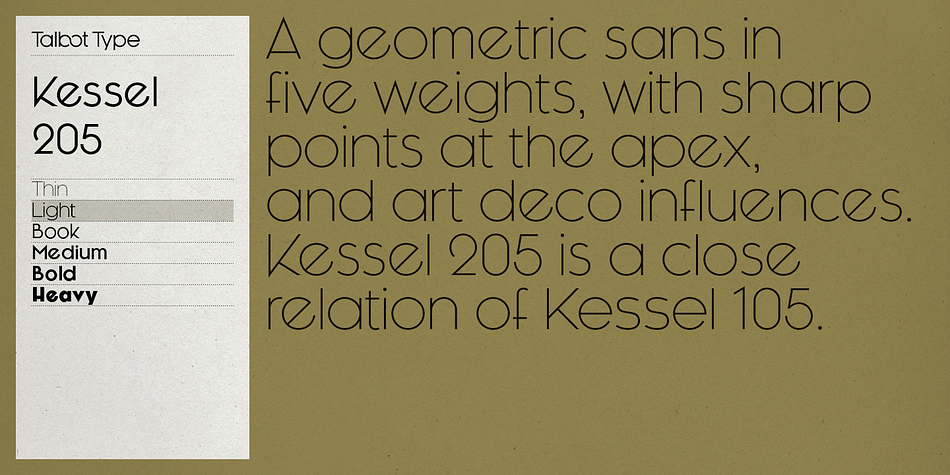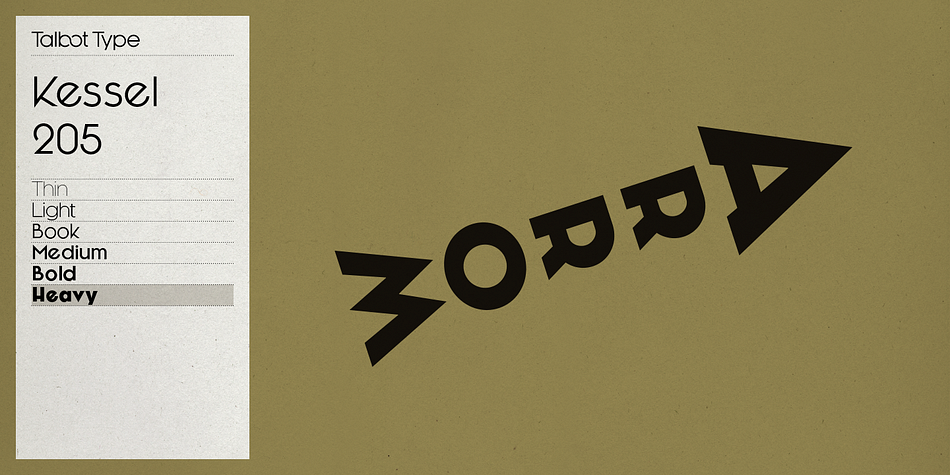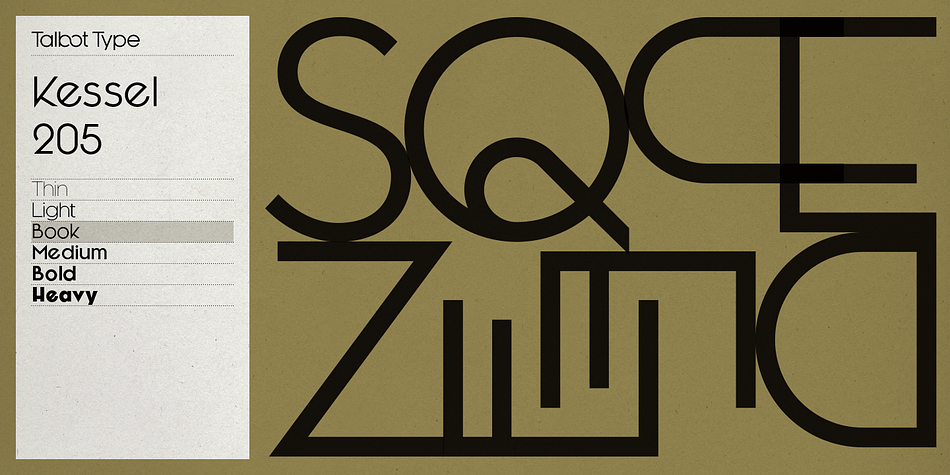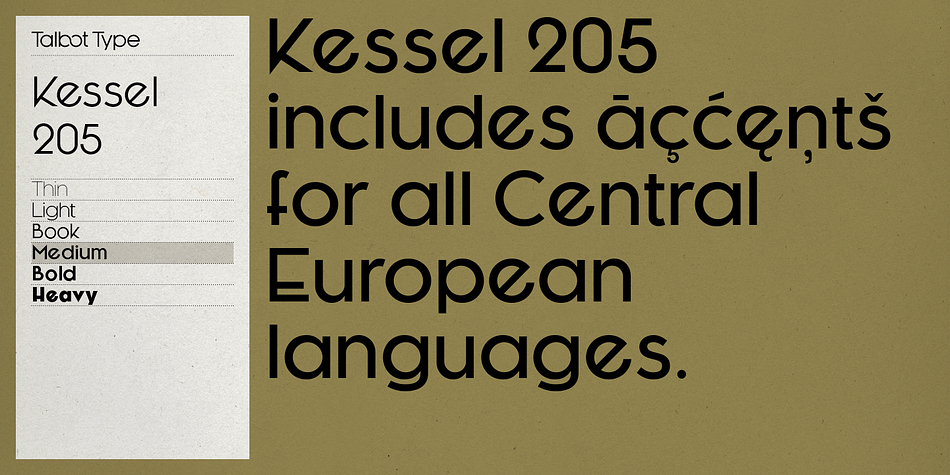
Kessel 205 is a sans serif font family. This typeface has twelve styles and was published by Talbot Type.
Kessel 205 is a geometric sans-serif, and features a strong Art Deco influence with sharp points at the apex of many characters, lowered crossbars and an oblique crossbar on the lower case e.
It’s a highly distinctive looking font but retains good legibility while offering a strongly individual look as a display font at larger sizes. The Kessel 205 family comprises of six weights and is closely related to Kessel 105.
Kessel 205 features both aligning and non-aligning (old style) numerals and includes an extended character set, to offer accented characters for Central European languages.